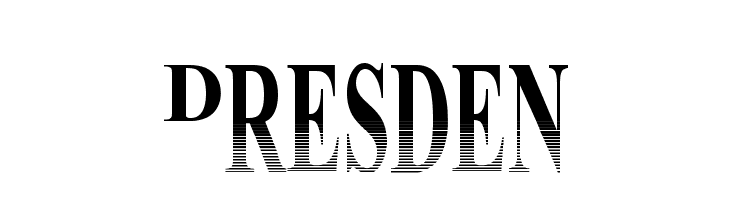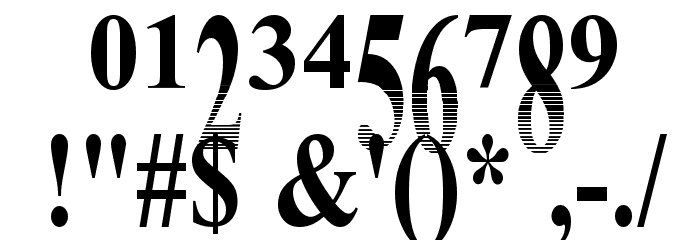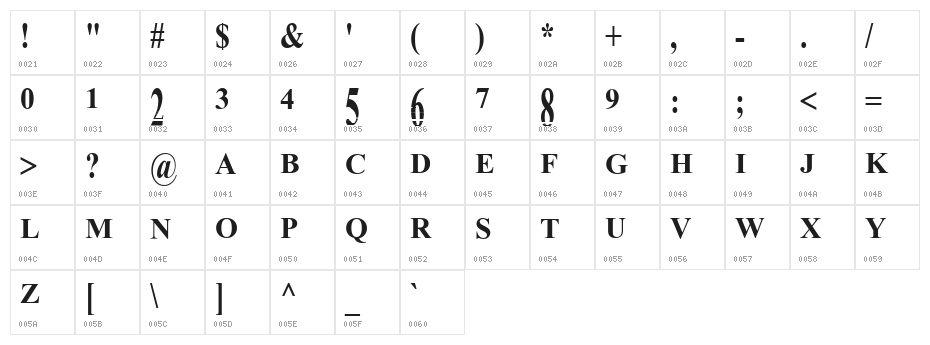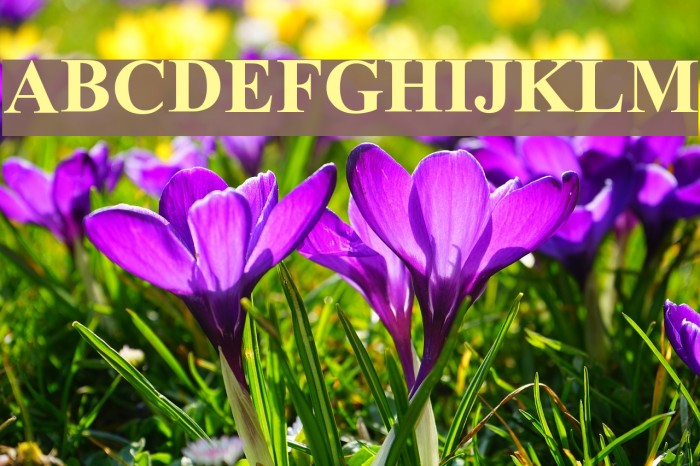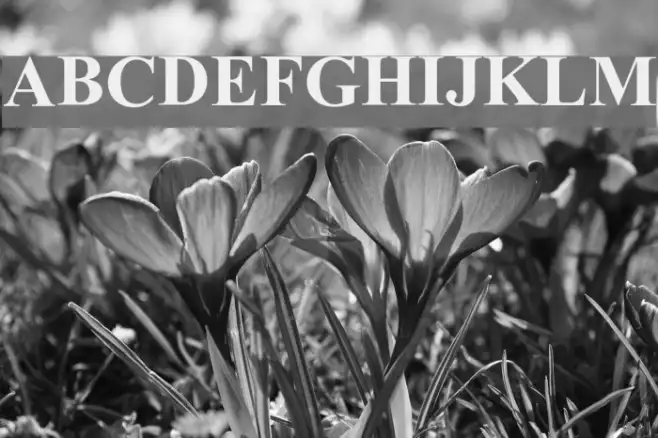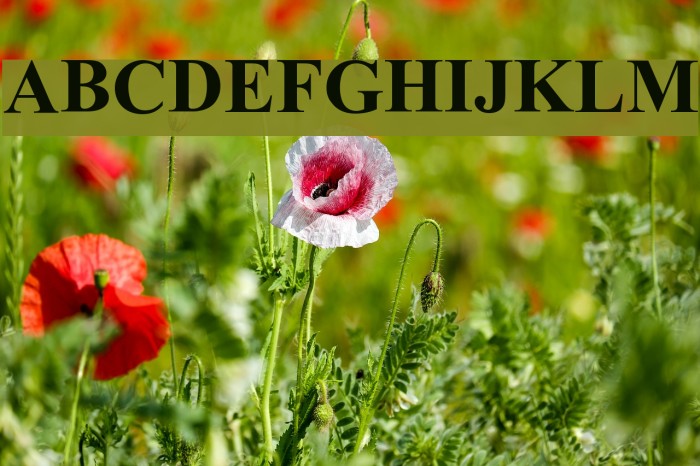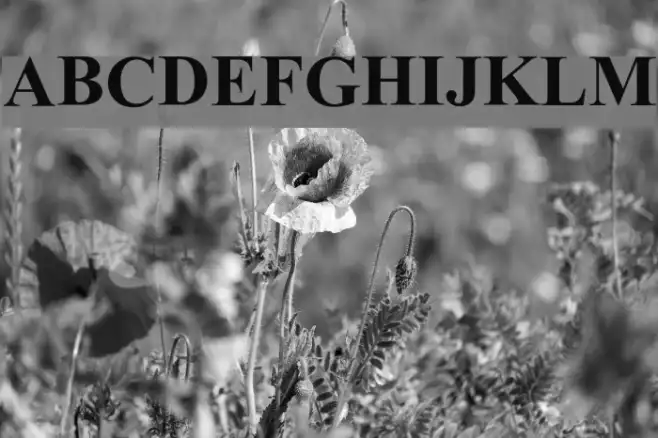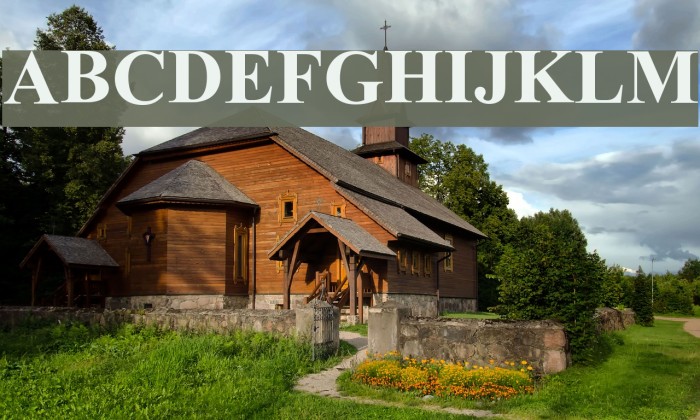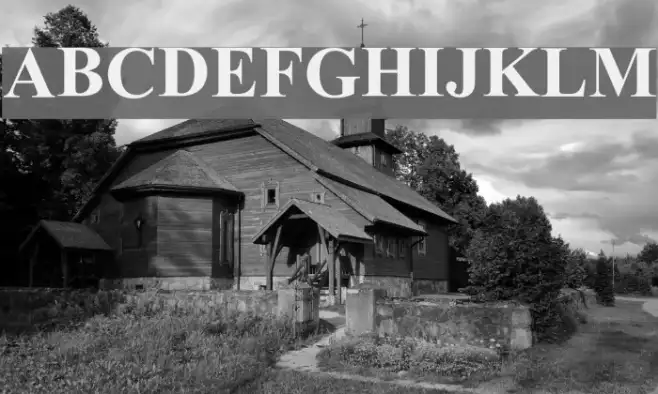
Dresden Font
Dresden Description
This font is a bold and striking serif typeface that exudes a sense of authority and elegance. The uppercase letters are well-defined with strong vertical lines and subtle curves, creating a classic and timeless appearance. The lowercase letters maintain the same boldness, ensuring consistency throughout the typeface. The numerals are equally robust, offering clear readability. Special characters are designed with the same attention to detail, making them stand out while maintaining harmony with the rest of the font. The overall style is reminiscent of traditional serif fonts, yet it carries a modern twist with its clean lines and balanced proportions.
| Use Case | Headlines, Logos, Editorial design |
| Proposed Projects | Ideal for use in headlines, book covers, branding, and editorial design where a strong, authoritative presence is desired. |